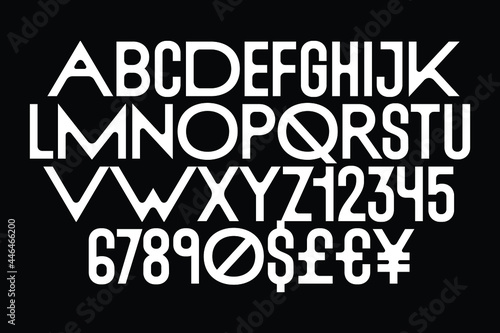
Powerful super modern, mysterious, tech and sexy editorial unicase vintage font for amazing social media, headlines, large-format print, editorial, branding, posters, fashion websites and mobile apps.